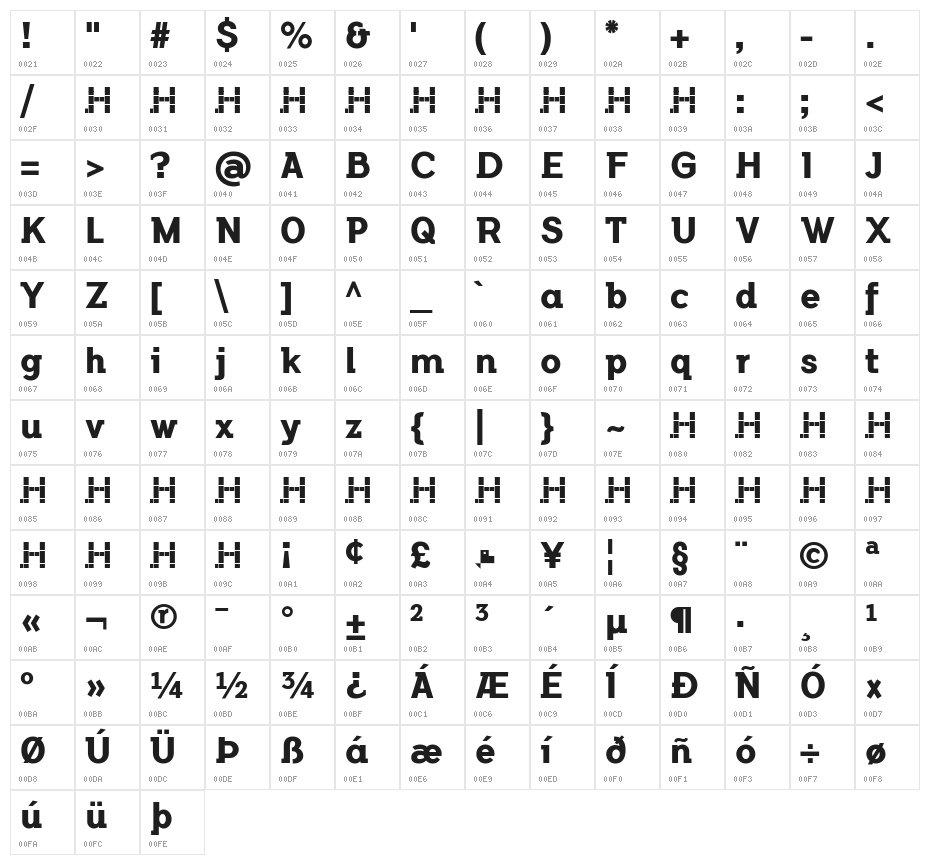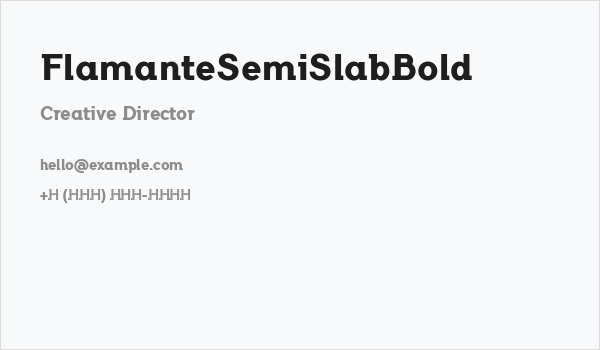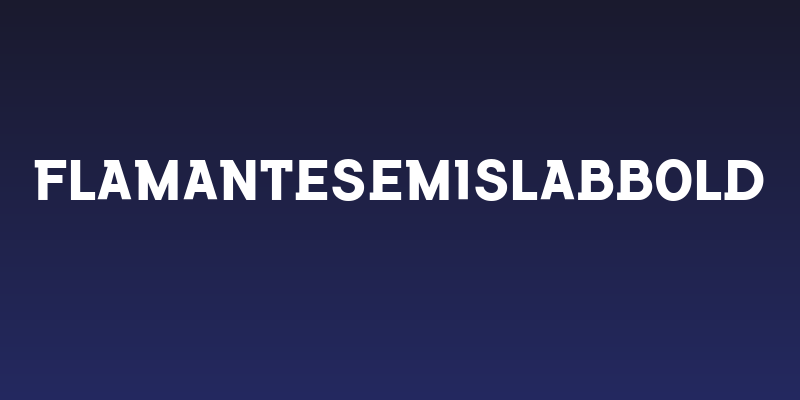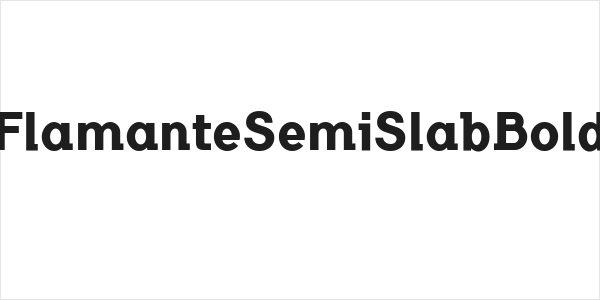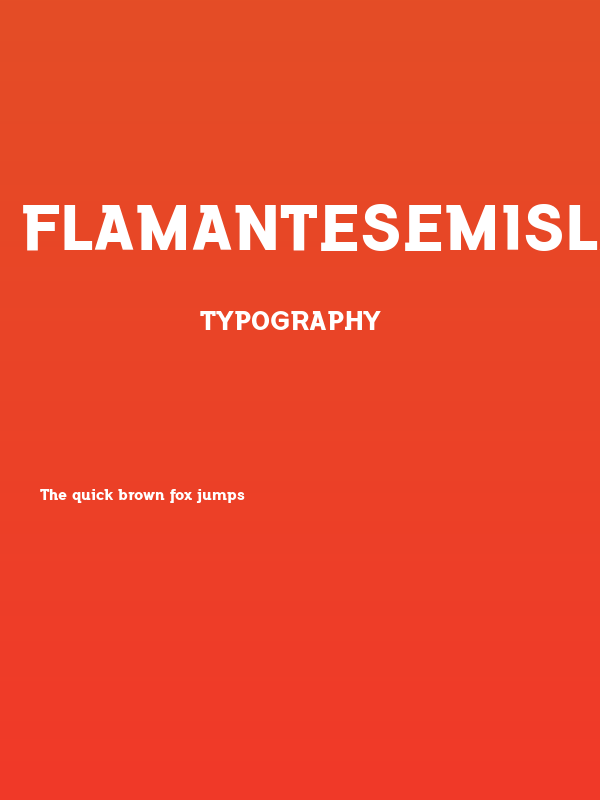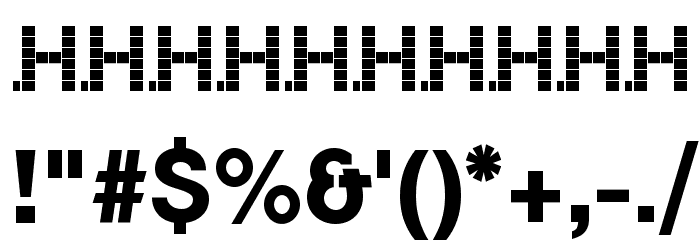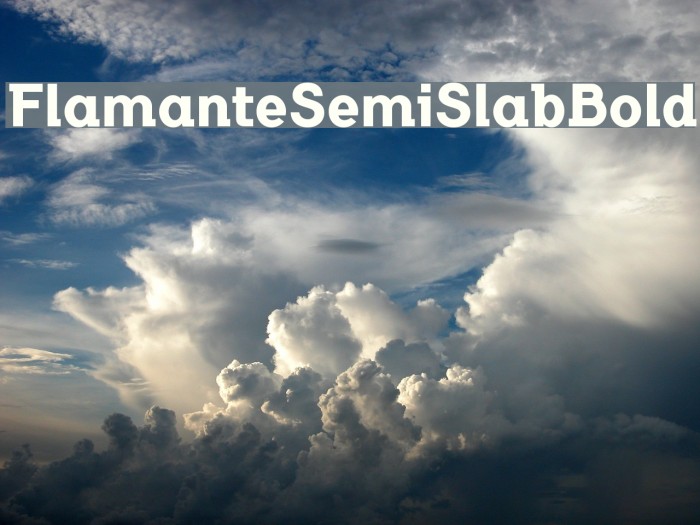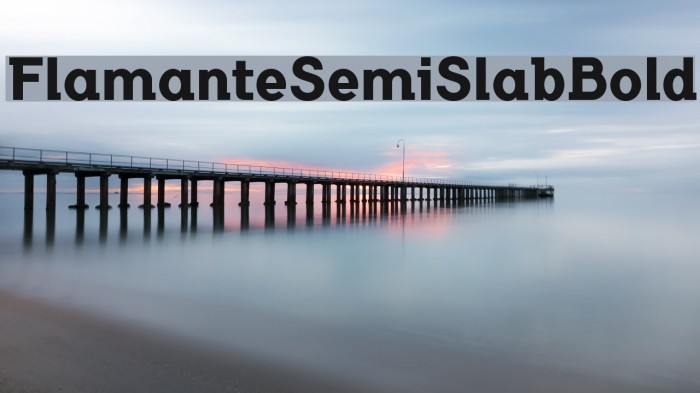
FlamanteSemiSlabBold Font
FlamanteSemiSlabBold Description
This font exhibits a robust and confident presence with its semi-slab serif design. The bold weight enhances its strong and impactful appearance, making it suitable for attention-grabbing headlines. The characters are well-defined with a modern touch, featuring slightly rounded edges that soften the overall look. The uppercase and lowercase letters maintain a consistent style, ensuring readability and coherence. The numerals and special characters are crafted with the same attention to detail, providing a harmonious visual experience. The font's structure is balanced, offering a perfect blend of traditional serif elements with a contemporary twist.
| Use Case | Headlines, Logos, Branding |
| Proposed Projects | Ideal for branding, advertising, headlines, and editorial design projects. |